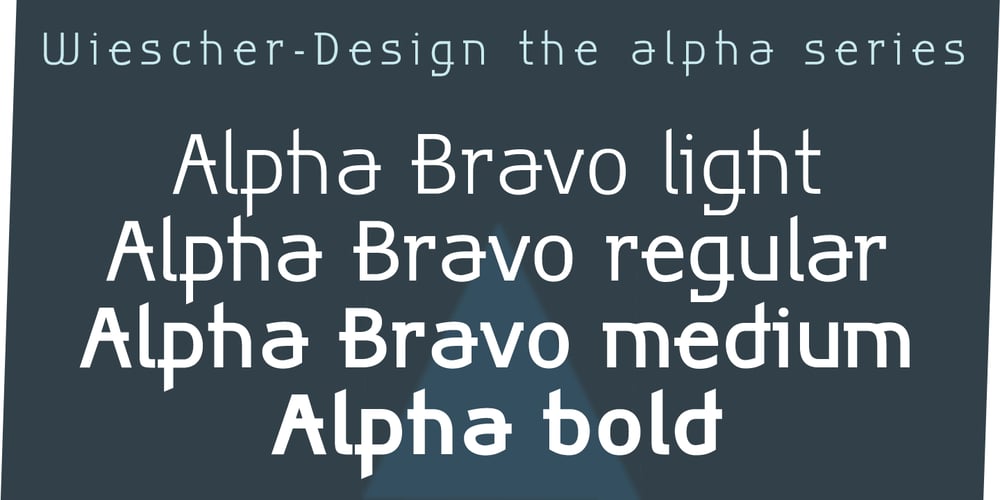
Alpha Bravo
Alpha Bravo font
Alpha Bravo Font Family was designed by Gert Wiescher and published by Wiescher Design. Alpha Bravo contains 4 styles and family package options. AlphaBravo was born on a napkin. I was just doodling, playing around with letterforms when the ballpoint glided a little bit too far and suddenly I had my first letter with the dash sticking out on the left of the e’s horizontal line. I quickly checked on how many letters I could let a line stick out! Then I wrote a couple of words that way and letters joined in the most unusual places, creating new closed forms. I gave the font a try and quickly discovered, that I had stumbled onto an interesting new typeface. I didn’t know how to call it, so I simply used the first two letters of the alphabet, Alpha and Bravo. Looking forward to Charlie and Delta, your very curious, Gert Wiescher.